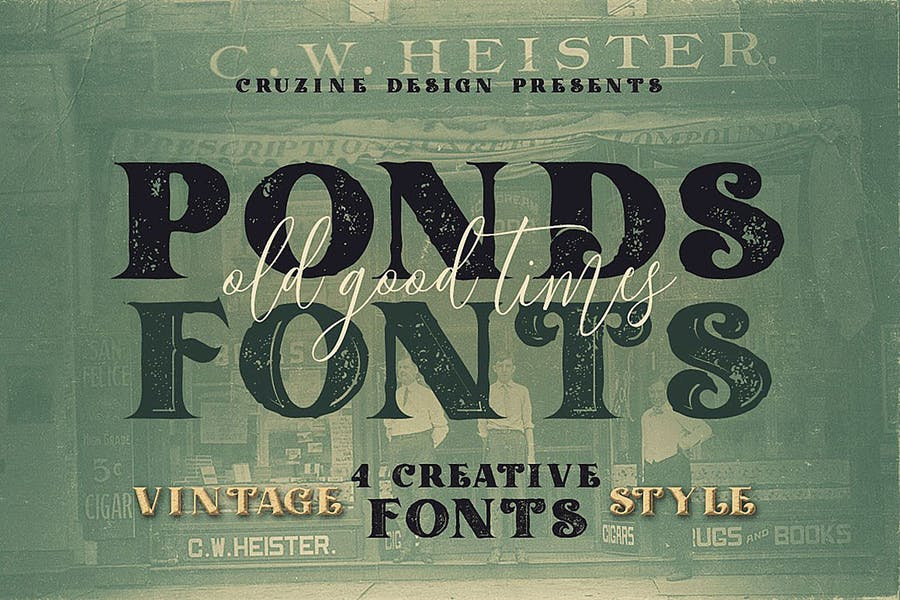
Ponds Typeface Font
Ponds Typeface Font is perfect for serene wellness centers, tranquil spa branding, peaceful meditation retreats, calm nature reserves, reflective water features, mindful garden centers, serene therapy practices, peaceful environmental organizations, quiet contemplative venues, and soothing lifestyle brands.
Ponds Typeface Font creates excitement because it embodies the tranquil serenity and peaceful reflection of still water surfaces with its flowing letterforms and water-inspired character design. The font's gentle curves and reflective aesthetic instantly convey natural calm and peaceful sophistication, making any brand appear harmoniously balanced and authentically serene. Its carefully crafted water details and contemplative character create an immediate sense of peaceful tranquility that captivates audiences seeking serene experiences, wellness quality, and products that celebrate the transformative power of water meditation and natural peace.
The Ponds Typeface Font family includes multiple weights and styles: Regular, Bold, Light, Medium, Italic, Condensed, Extended, Flowing, Tranquil, and Peaceful versions. Each variant maintains the font's signature serene character while offering different levels of water styling and peaceful authenticity suitable for various wellness and nature-focused applications.
This calming typeface brings the authentic spirit of peaceful waters into contemporary wellness design with remarkable serenity and natural appeal. Ponds Typeface Font Free Download provides wellness brands and peaceful organizations with access to premium water-inspired typography that embodies the essence of natural tranquility and peaceful excellence. The font's flowing design and peaceful authenticity make it ideal for businesses seeking to establish meaningful connections with wellness-conscious audiences who appreciate natural serenity, peaceful environments, and the transformative power of water meditation that creates inner calm through natural connection. Whether you're creating branding for wellness centers, designing materials for peaceful retreats, developing communications for nature organizations, or producing content for contemplative venues, this font delivers the serene water atmosphere that resonates with audiences seeking genuine peaceful experiences, wellness quality, and the natural tranquility that comes from embracing authentic water meditation and peaceful living. Its versatile design ensures outstanding performance across both calming printed materials and peaceful digital wellness platforms while maintaining the character of authentic water typography. The font excels in applications requiring wellness credibility and peaceful appeal. Wellness professionals appreciate its ability to convey natural serenity while remaining highly functional for various peaceful communications and wellness promotional materials. The comprehensive character set includes water symbols and extensive international language support, making it perfect for global wellness brands and international peaceful organizations seeking to communicate authentic natural tranquility, peaceful wellness, and serene excellence to diverse worldwide audiences who embrace peaceful living, appreciate natural serenity, and value the transformative power of genuine water meditation that creates lasting peace through natural reflection, mindful contemplation, and the timeless wisdom of still waters that teach patience, clarity, and the beautiful art of peaceful living through harmonious connection with nature's gentle rhythms.